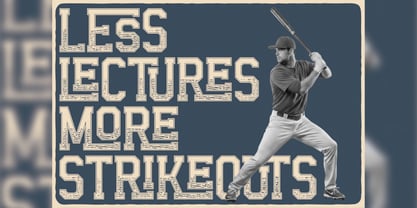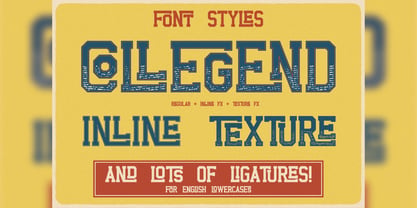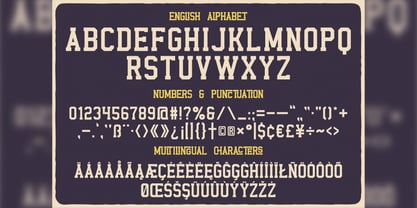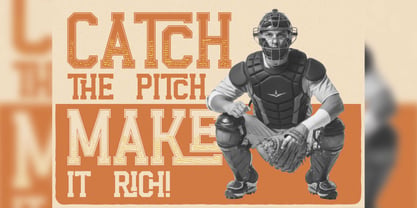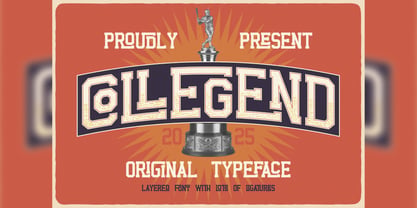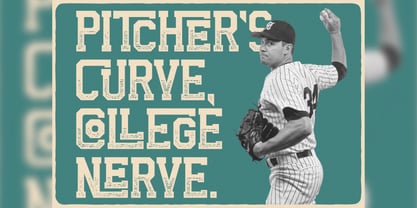
Collegend
by Vozzy
The Collegend Font Family was designed by Oleg Voznyy and published by Vozzy. Collegend contains 6 styles and family package options. More about this family
Introducing the striking font "Collegend," designed specifically for headlines and accent inscriptions that demand attention. This unique typeface features a comprehensive set of additional characters, punctuation marks, and multilingual options, ensuring versatility for diverse design needs. With a wealth of standard ligatures, Collegend enhances readability and aesthetic appeal—just ensure your software supports these OpenType features. Perfect for branding, web design, and editorial projects, this font will elevate your creative endeavors and make your designs truly stand out!
Designers: Oleg Voznyy
Foundry: Vozzy